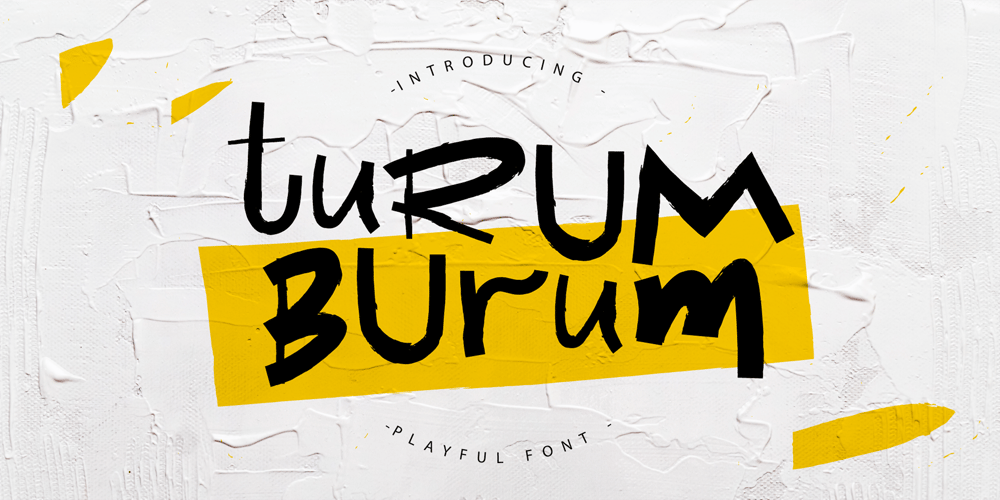
Turum Burum
Turum Burum font
Turum Burum Font Family was designed by Ekaterina Chernysheva and published by Chekart. Turum Burum contains 1 styles and family package options. Turum Burum is a hand drawn funny playful font. It comes with uppercase and lowercase characters, set of punctuation marks, numbers, alternative set of latin characters and numbers, Cyrillic characters, ligatures and multilingual support.Ideal for logos, quotes, posters, branding projects, product packaging, t-shirt, book cover, greeting cards and applicable for any graphic design.